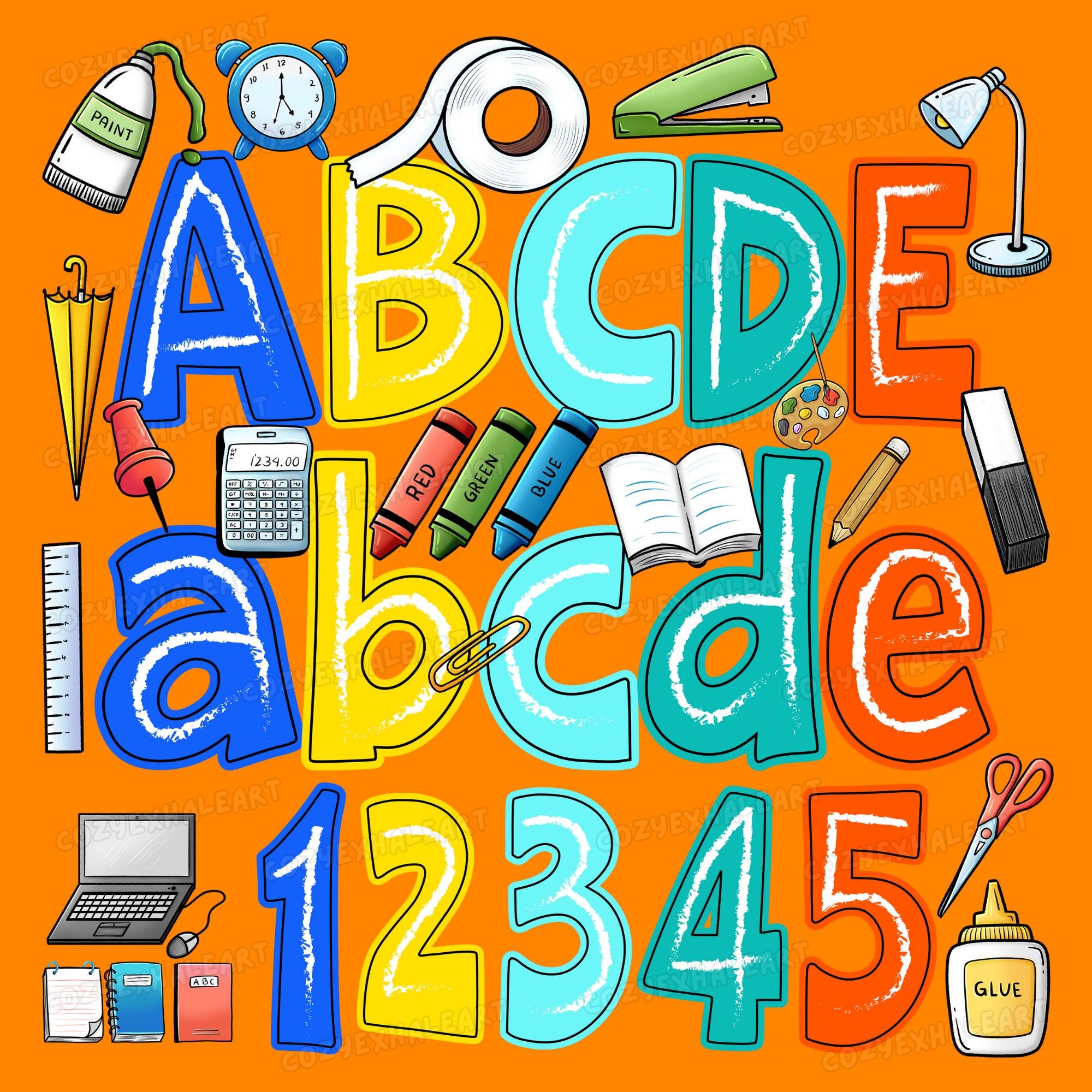
Back to School Alphabet PNG Bundle – Classroom Letters & Numbers with School Supply Clipart, Chalk Font for Teacher DIY, Bulletin & Sublimation
Get ready for the school year with this Back to School Alphabet PNG Bundle – a playful, colorful letter and number set surrounded by school supply clipart! Featuring chalk-style fonts and high-resolution graphics, this set is perfect for teachers, parents, and creatives looking to make educational resources pop.
Whether you're building bulletin boards, labeling classroom stations, or crafting fun worksheets, these PNGs add vibrancy, learning energy, and cheerful personality to your projects.
Craft your classroom with confidence and color — learning has never looked so good!